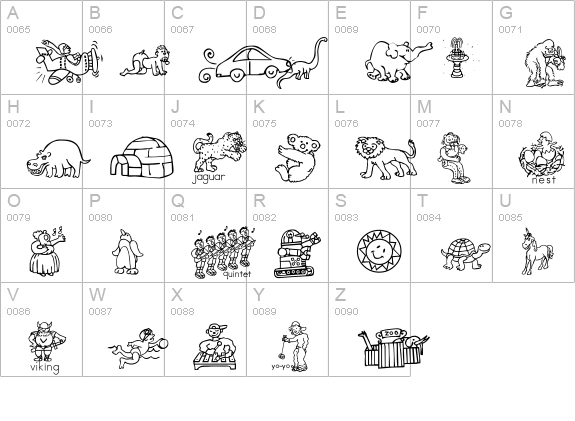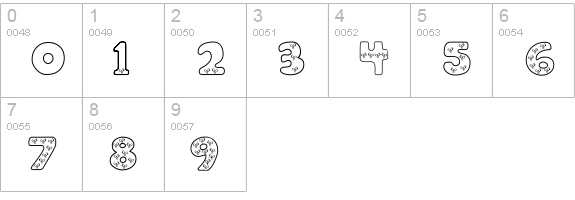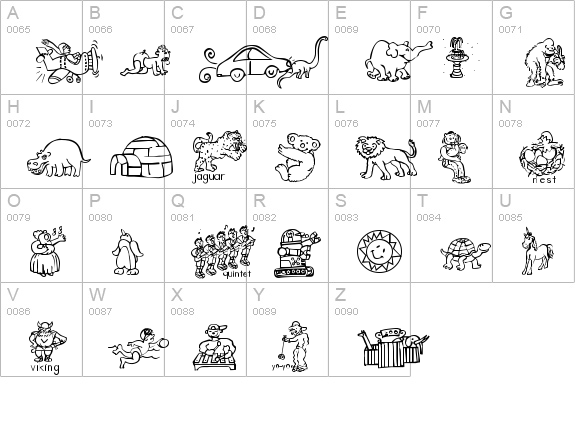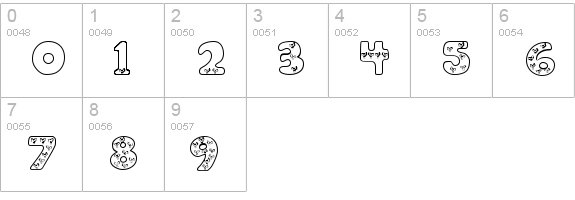
Introducing AbcPhonicsTwo font, a delightful and playful typeface perfect for creating educational materials, children's books, and more. This charming font features whimsical letterforms that are sure to captivate young readers and learners. With its fun and cheerful design, AbcPhonicsTwo is ideal for adding a touch of creativity to any project. Best of all, AbcPhonicsTwo font is available for free download at FontsMarket.com. This means you can easily access this charming typeface without any cost, making it a valuable addition to your design toolkit. Whether you're a teacher, parent, or designer looking to add a touch of fun to your projects, AbcPhonicsTwo font is the perfect choice. Download it today and start creating engaging and eye-catching designs that will delight both children and adults alike.